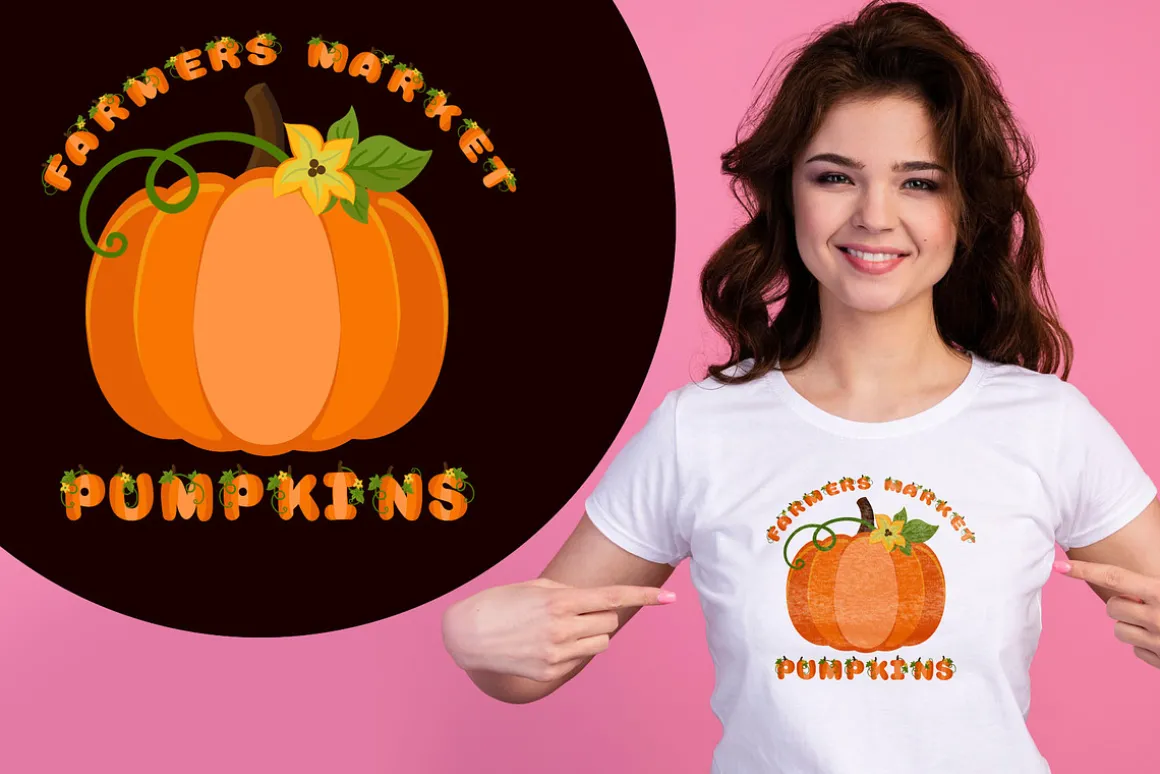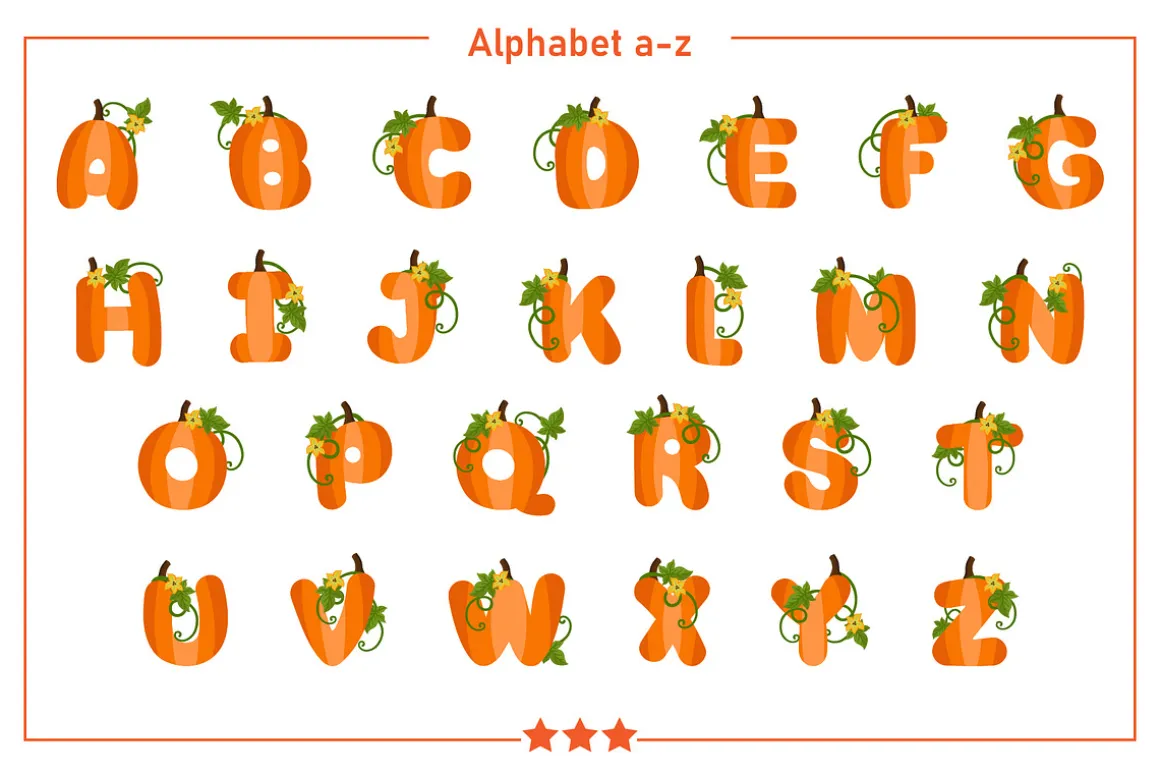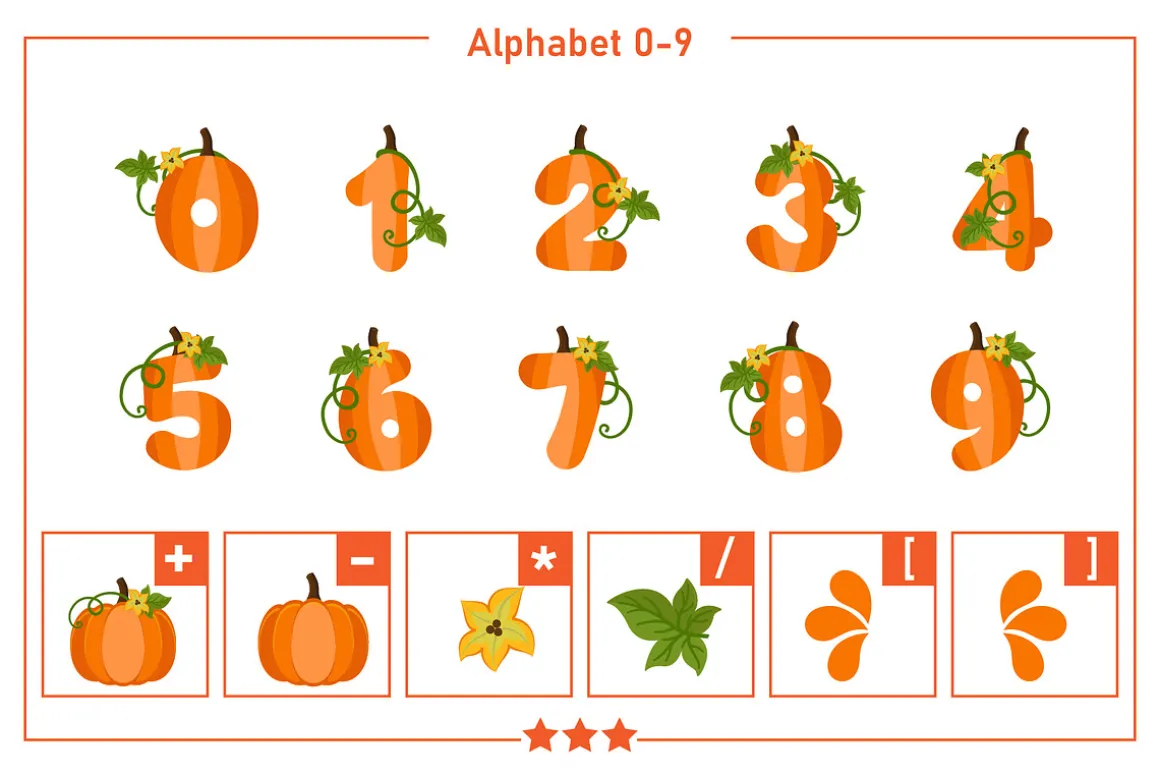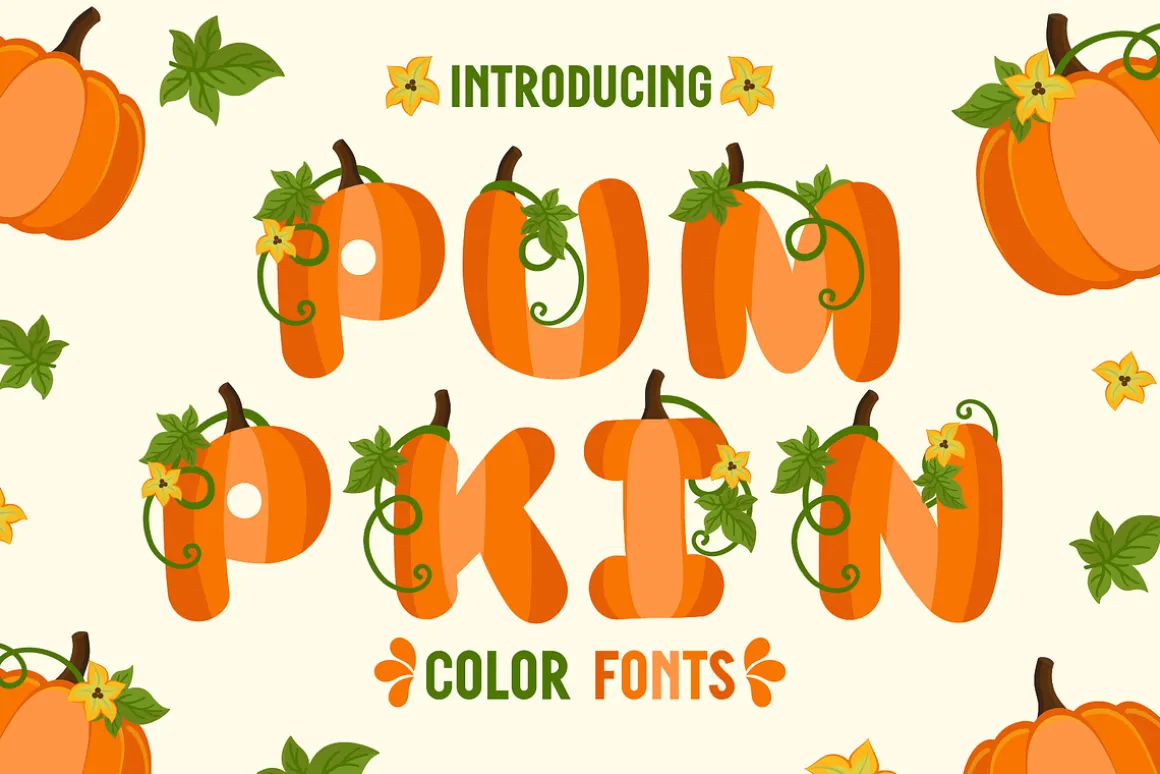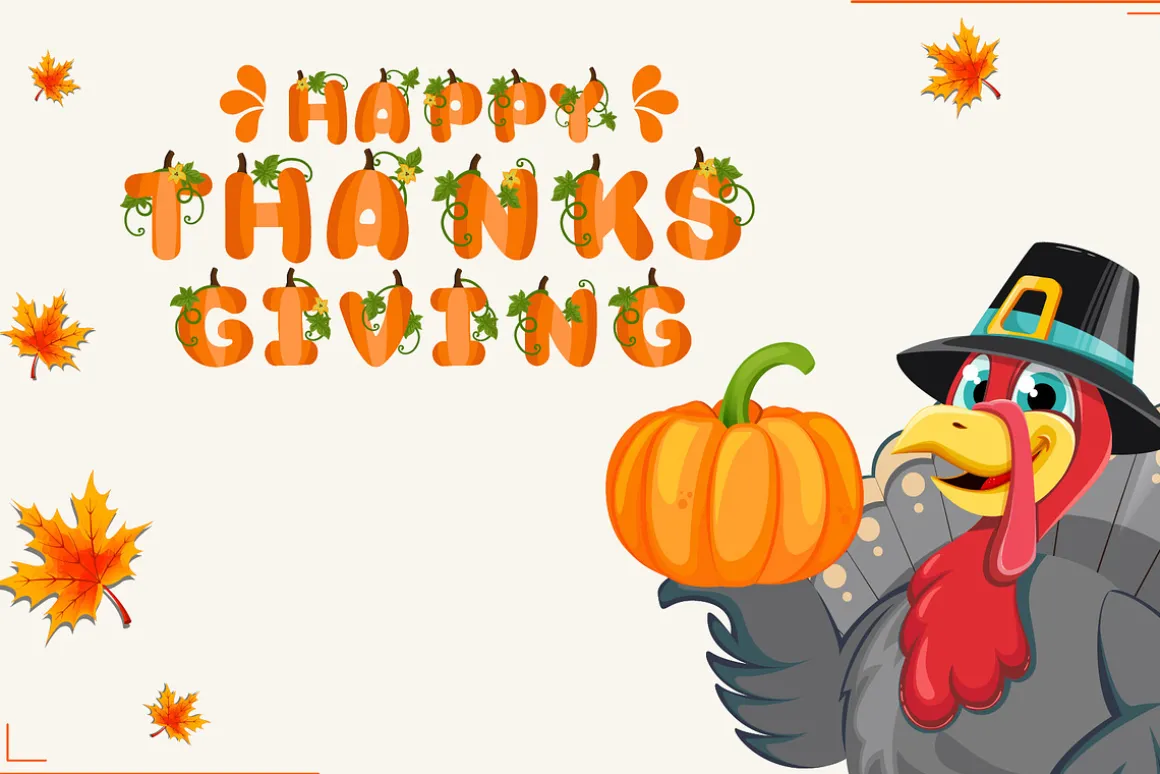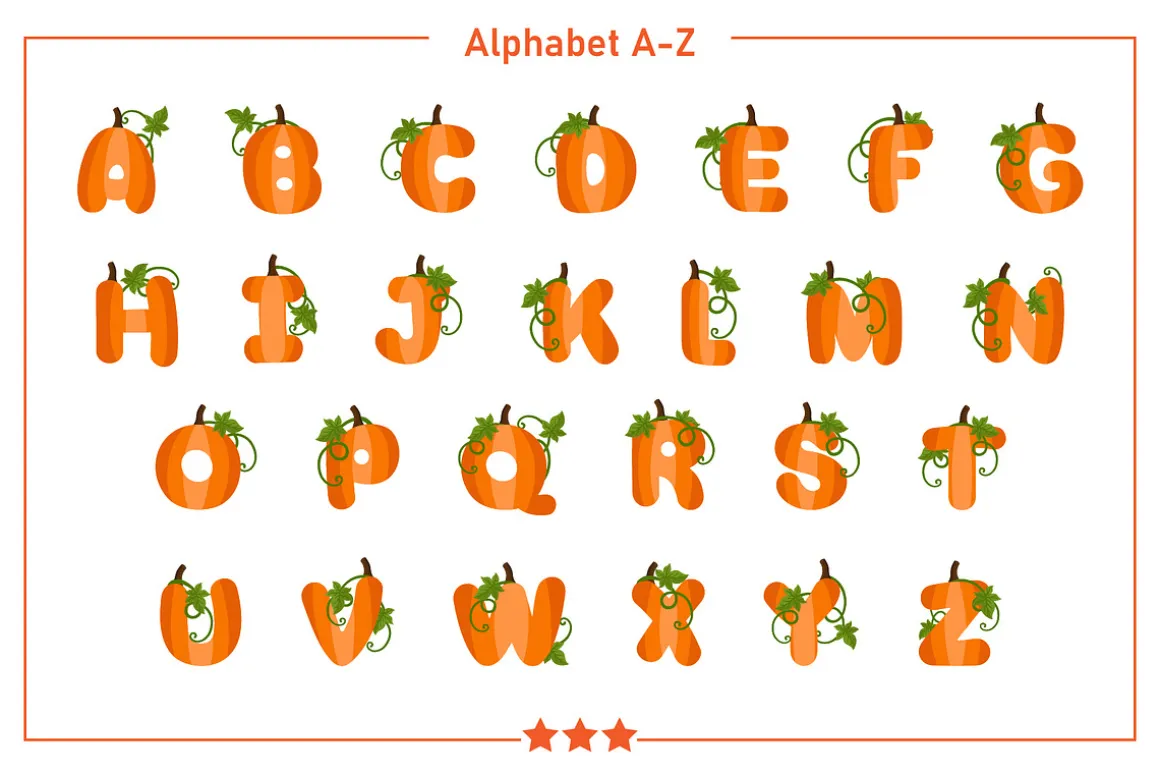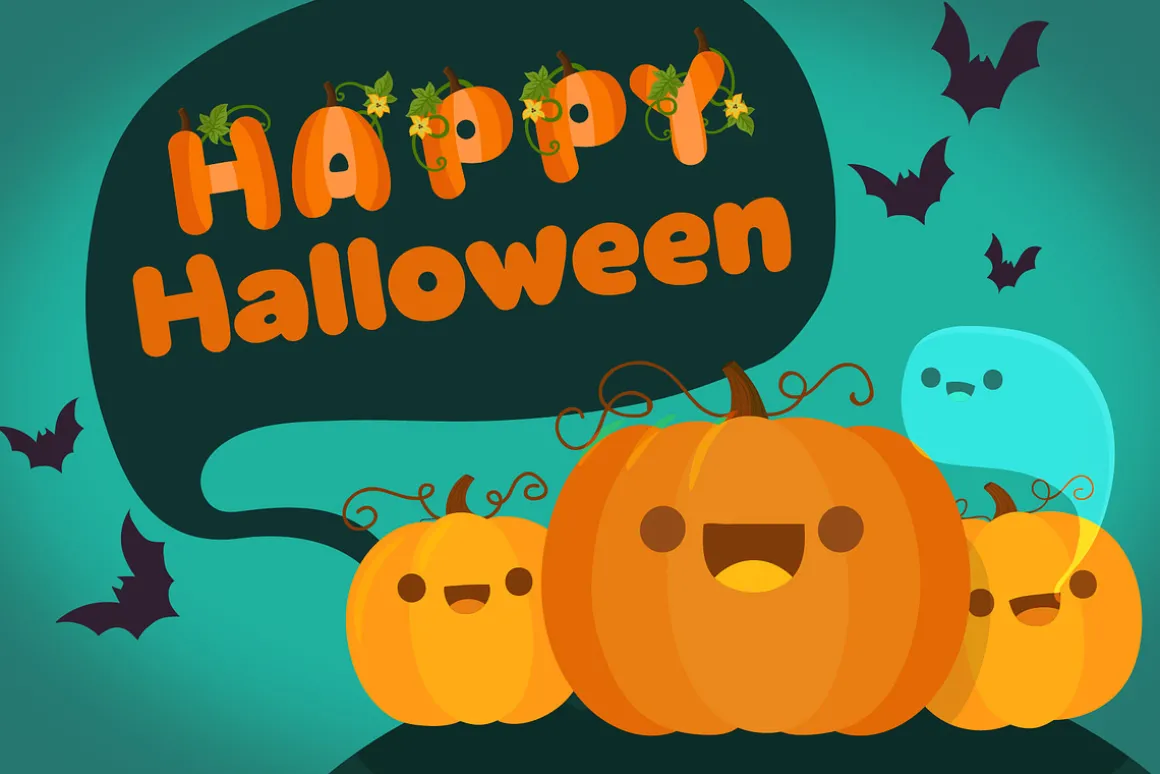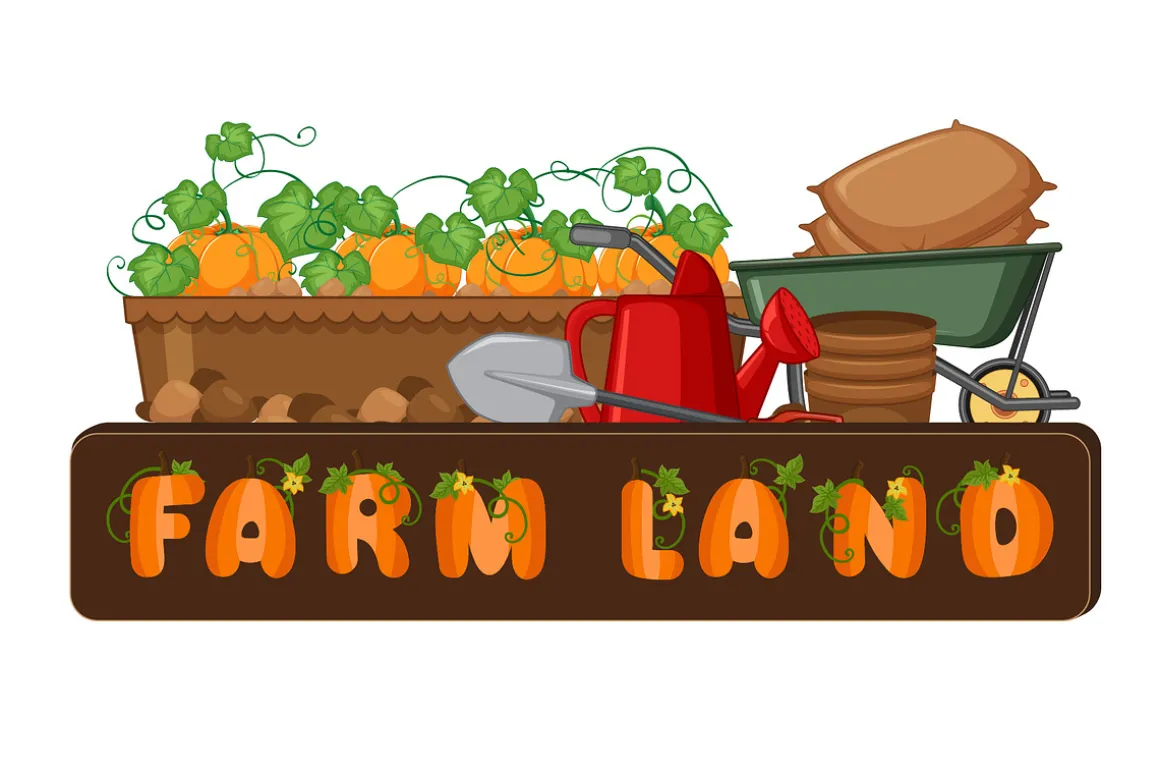
Pumpkin is a color font designed to give the impression of autumn. And it can be used for a variety of festivals including Thanksgiving, Halloween, and more.Fall in love with its authentic feel and use it to create gorgeous invitations, beautiful stationary art, eye-catching social media posts, and cute greeting cards. Add this beautiful display font to each of your creative ideas, and notice how it makes them stand out.